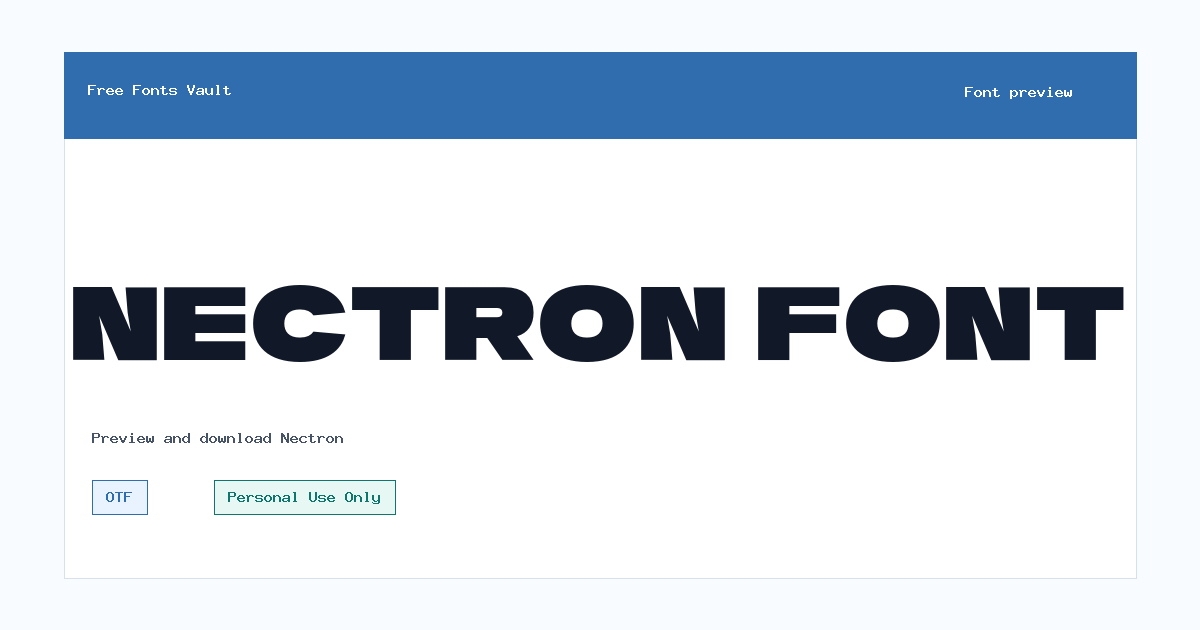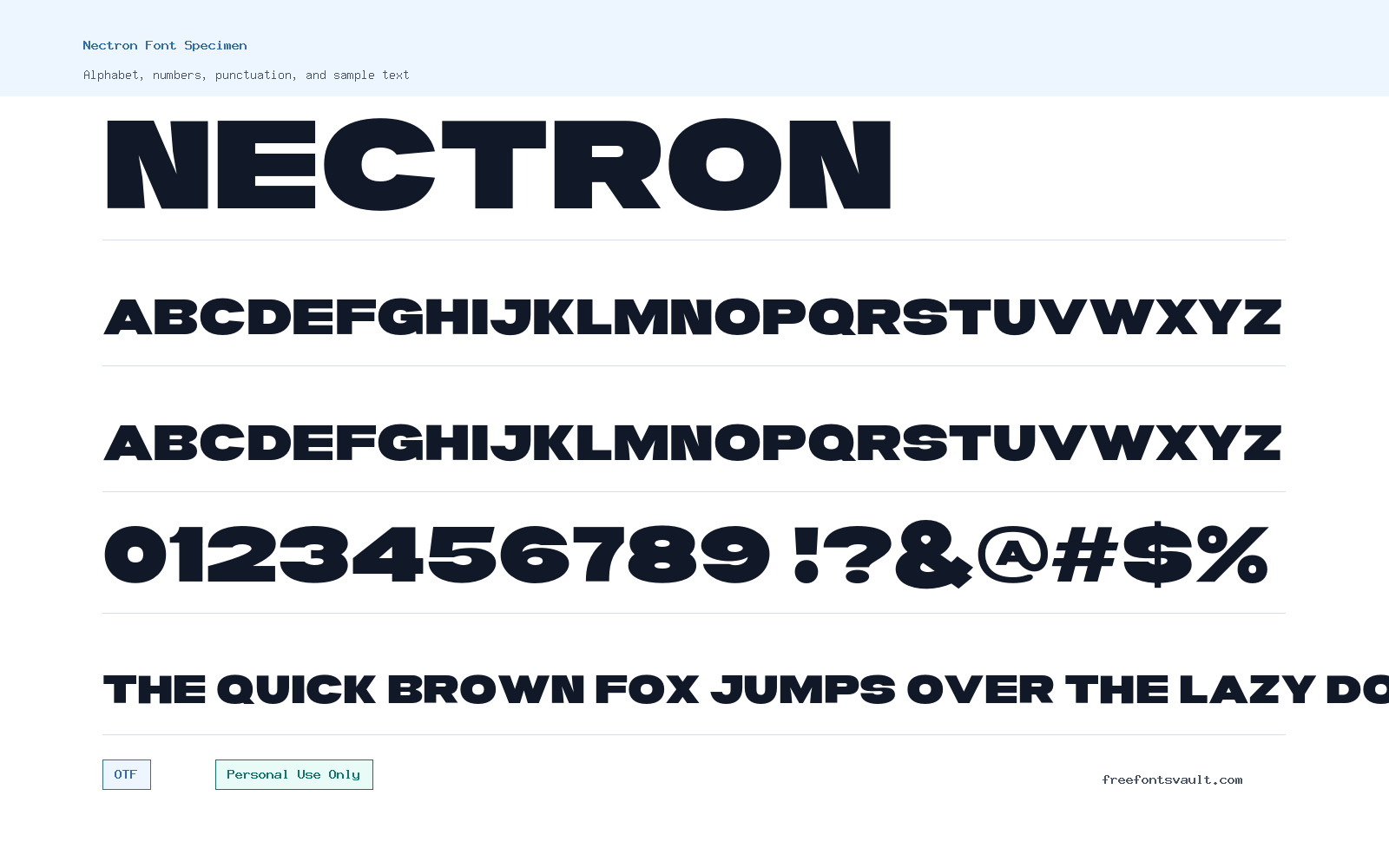
Nectron
- Designer Angga mahardika
- Foundry amtypes
Nectron is a heavy sans serif display font with a wide, punchy look built for short text. Its thick letterforms, tight counters, and optional rounded styles make it useful when you want strong words that fill space quickly.
About Nectron Font
Nectron works best as a display face rather than a long-reading text font. The regular style has blocky, squared-off shapes with a dense black weight, while the rounded styles soften the corners without losing the bold impact. The italic styles add forward movement, making them useful for compact headlines, labels, sports-style graphics, poster text, and bold social media wording. Because the forms are very heavy, Nectron is most comfortable at larger sizes where the inner spaces of letters such as E, R, O, and A have room to stay clear.
- Bold sans serif display style with strong block letterforms
- Rounded options for a softer version of the same heavy look
- Includes uppercase, lowercase, numbers, and broad Latin character coverage
- Posters, banners, thumbnails, and short headline designs
- Logo drafts, badges, labels, and bold title graphics for personal projects
- Sports, gaming, tech, or entertainment-style layouts where heavy type is needed
- Large preview text where compact, high-impact lettering is more important than paragraph readability
Nectron is credited to Angga mahardika, with amtypes named as the foundry.
Set Nectron large, give it enough letter spacing when using all caps, and avoid using it for long paragraphs. Test both the squared and rounded styles in the preview to see which version fits your wording better.
What is Nectron best used for?
Nectron is best for short, bold display text such as headlines, posters, badges, thumbnails, and large title graphics.
Can I use Nectron for body text?
It is not ideal for long reading. The heavy shapes work better at large sizes and in short phrases.
Who designed Nectron?
The font is credited to Angga mahardika, and the foundry is listed as amtypes.